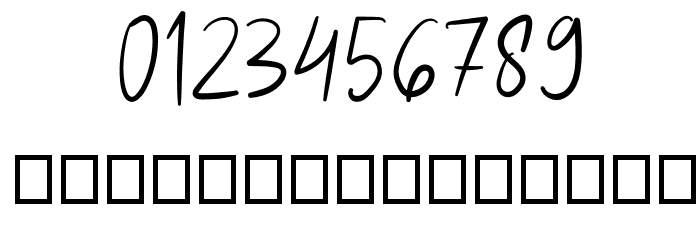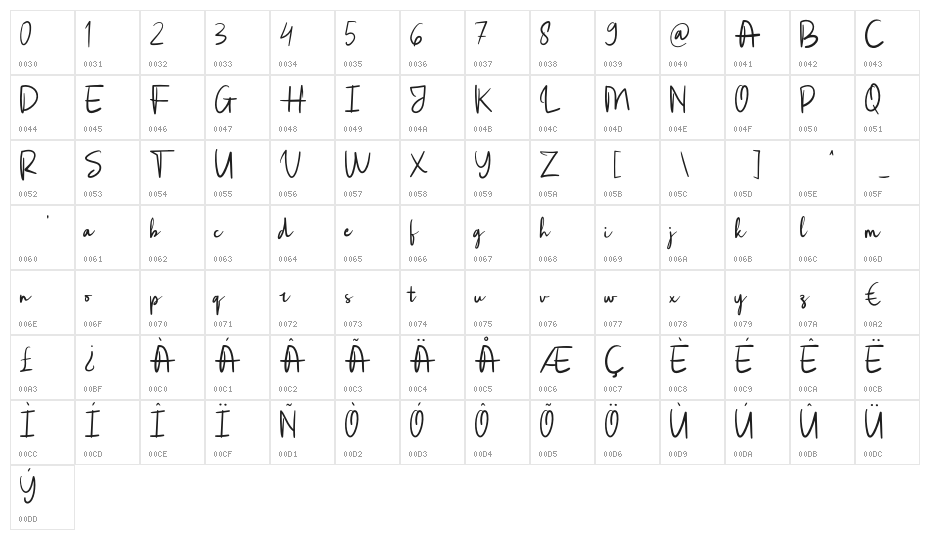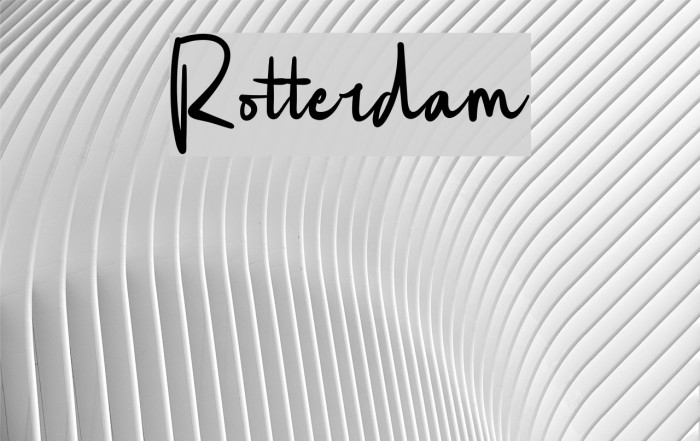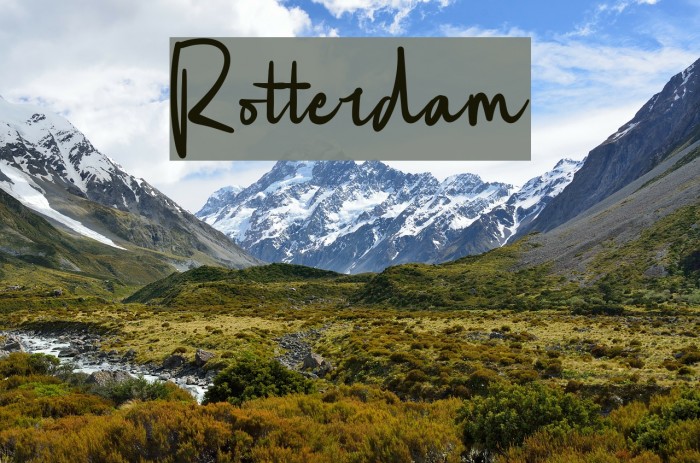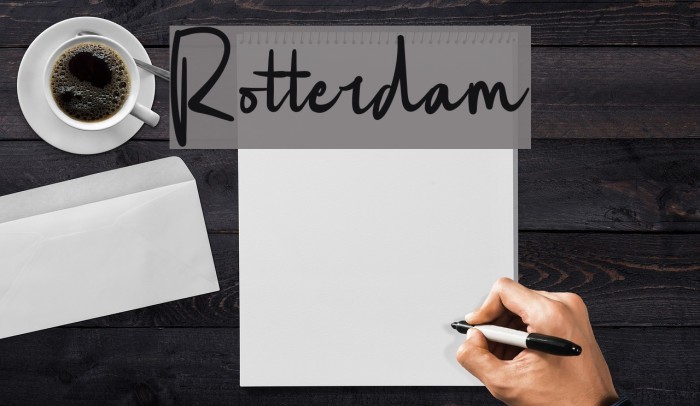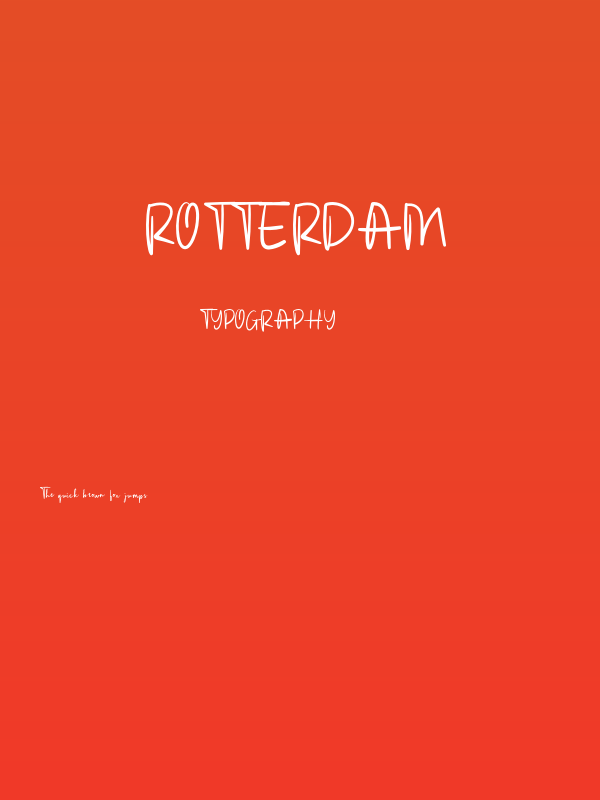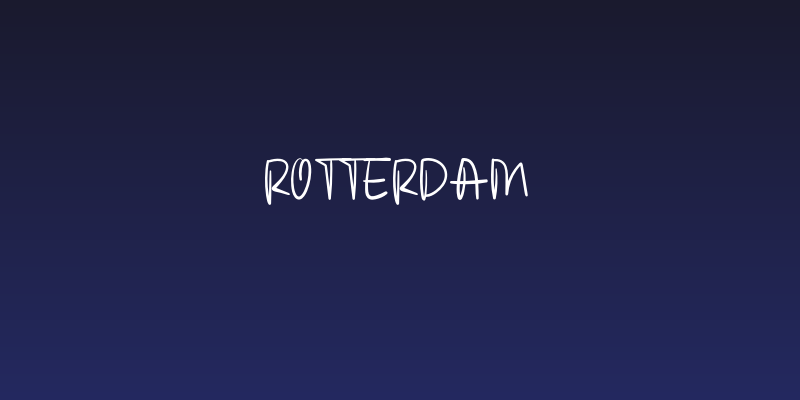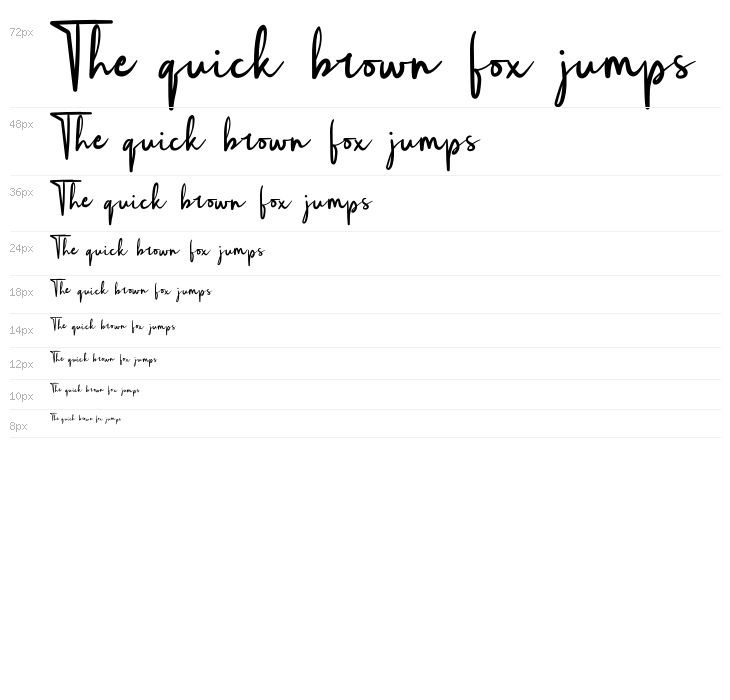
Rotterdam Font
Rotterdam Description
This font features a playful and casual handwritten style, characterized by its fluid and dynamic strokes. The uppercase letters exhibit a slightly elongated form with a consistent slant, giving them a lively appearance. The lowercase letters maintain a similar style, with smooth curves and a natural flow that mimics authentic handwriting. The numerals are well-integrated into the overall design, maintaining the same casual and approachable feel. The special characters are crafted with the same attention to detail, ensuring they blend seamlessly with the rest of the font. This font's overall aesthetic is both friendly and versatile, making it suitable for a variety of creative projects.
| Proposed Projects | Ideal for greeting cards, invitations, personal branding, and social media graphics. |